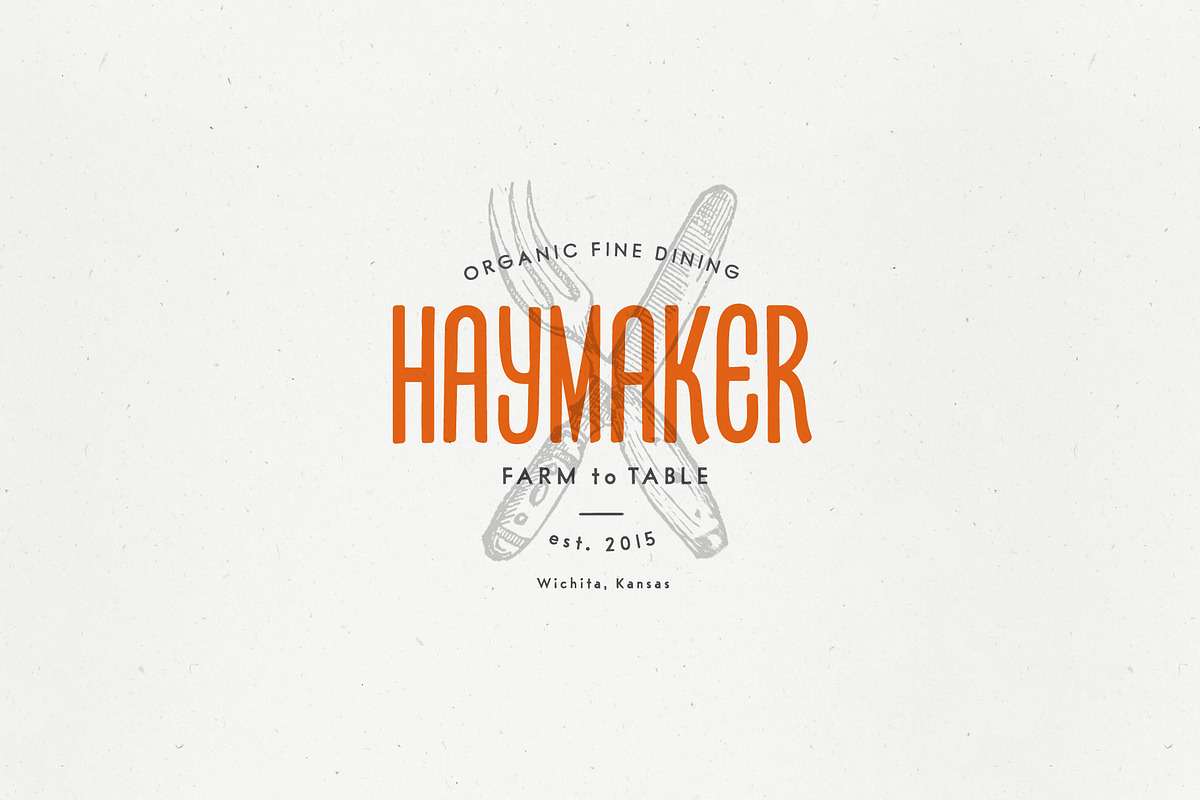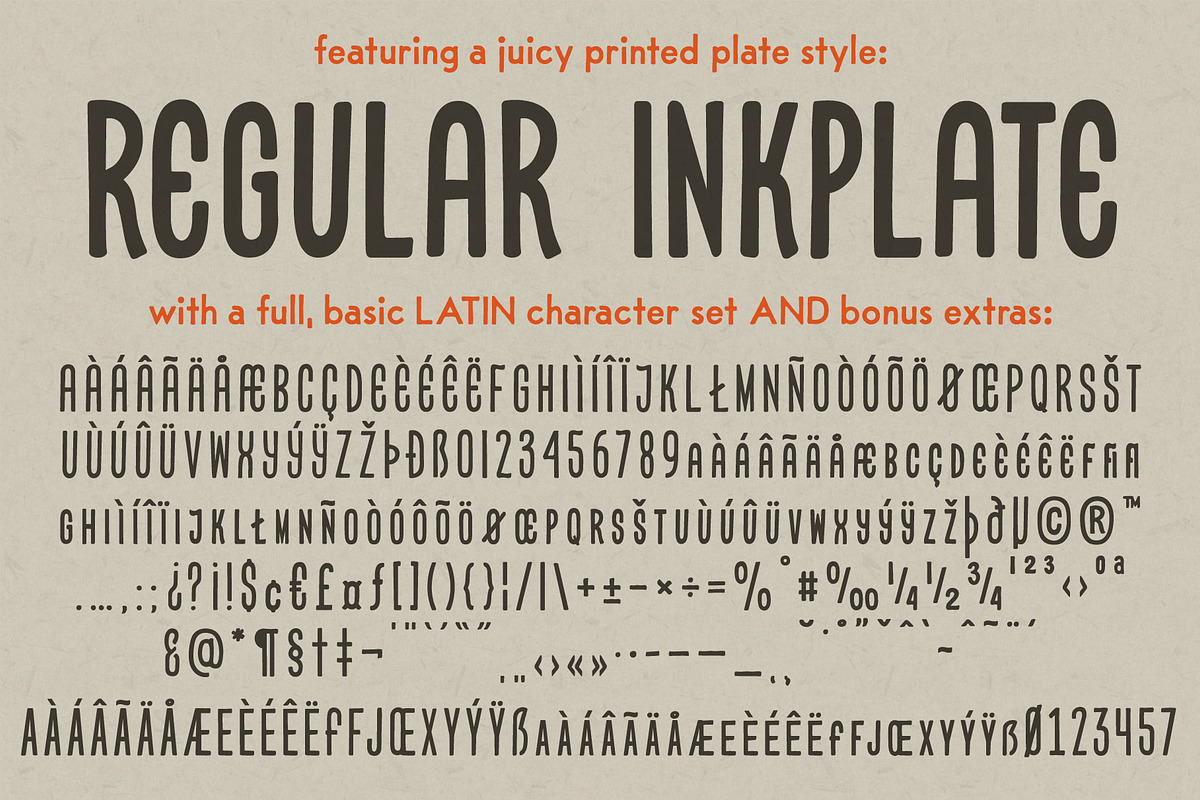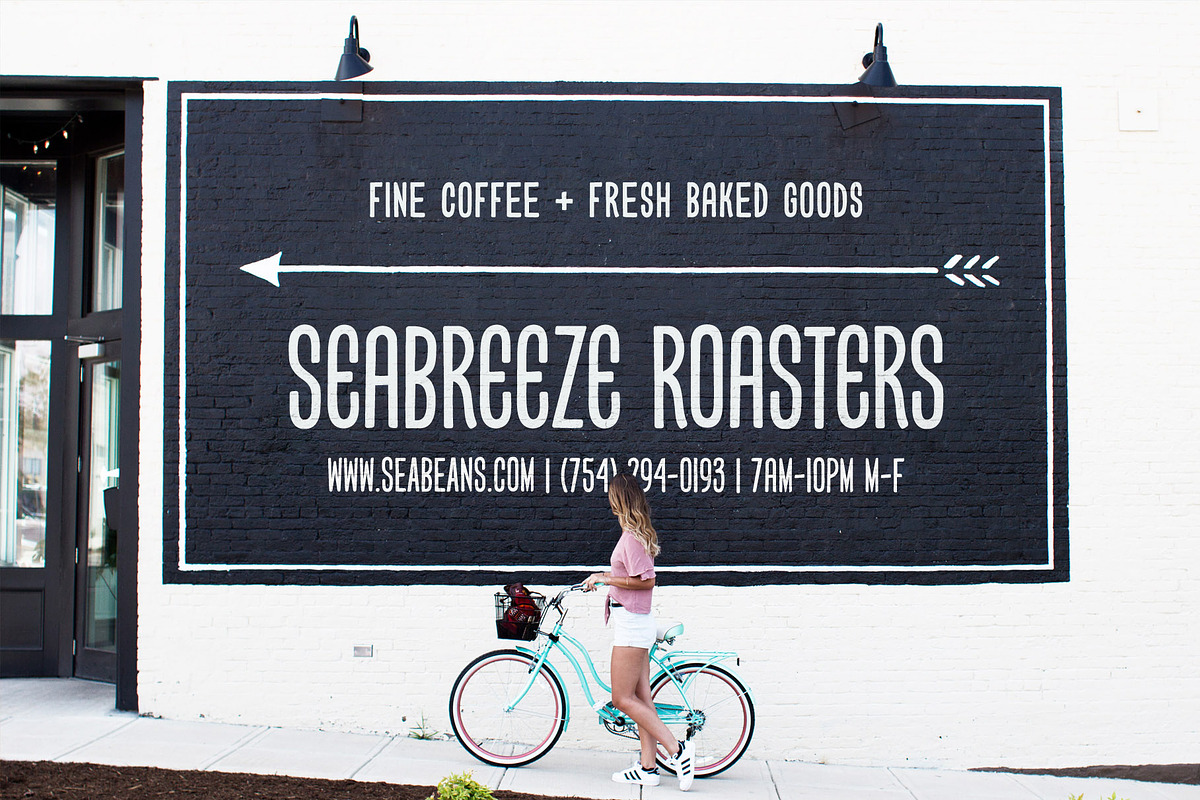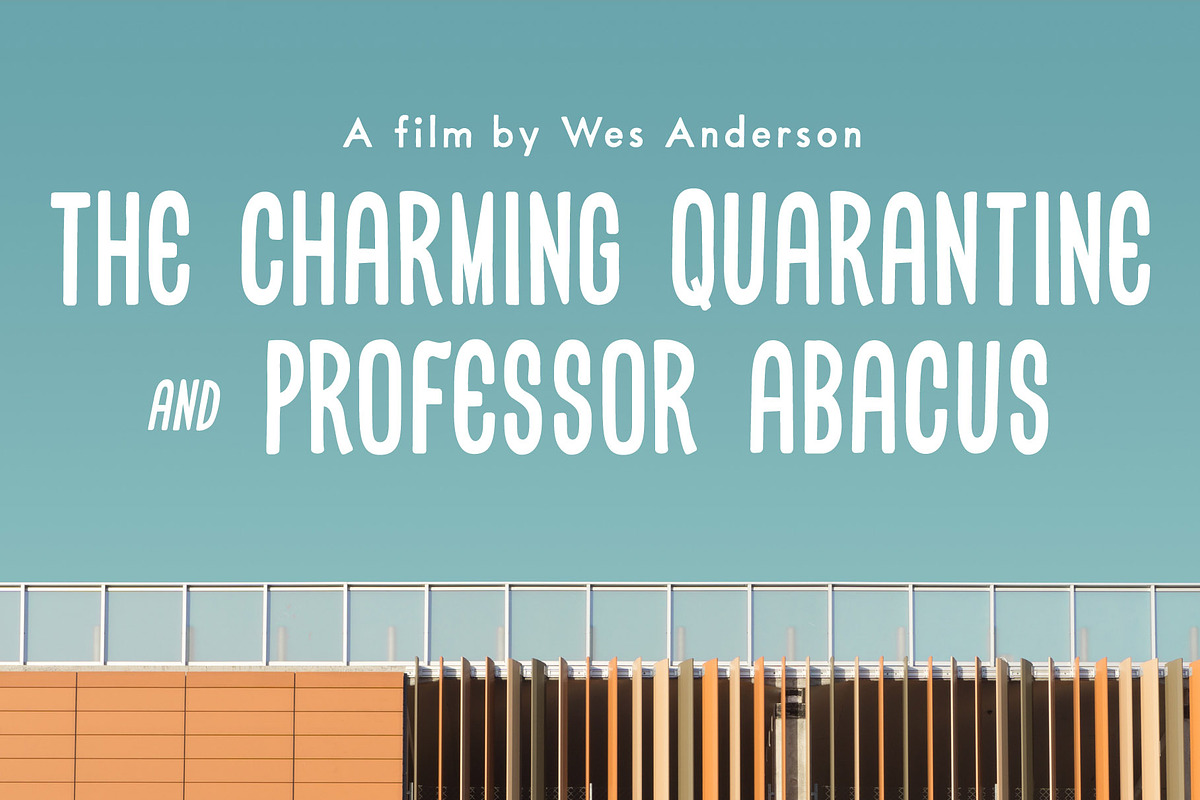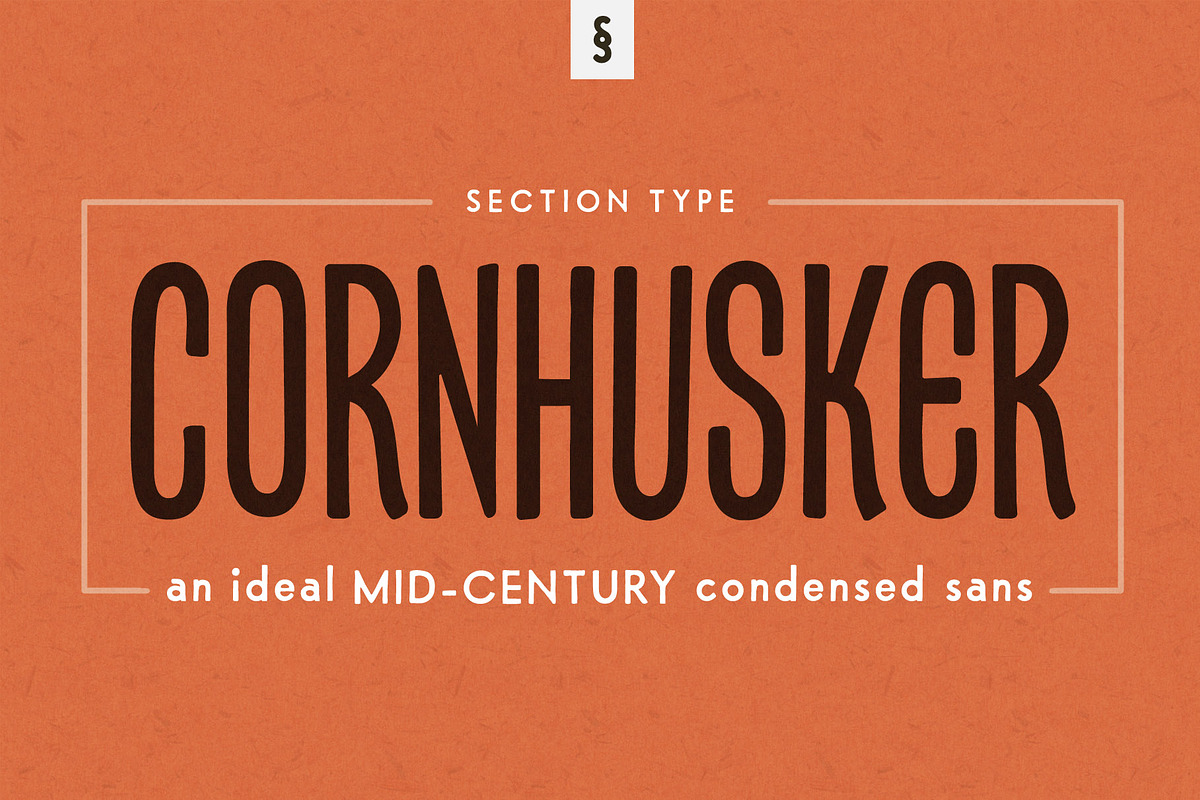
Cornhusker Regular | Condensed Font
Standing tall as an Illinois cornfield in September, Cornhusker Regular is a strapping condensed sans designed by a champion cornhusker. Inspired by 1940s Midwestern signage, it's warm & charming characters are perfectly at home in logos, beverage bottles and food packaging, restaurant menus, travel advertisements, websites, stationery, handmade product packaging and so much more. If you're looking for a hand-crafted typeface with punch (who can fit into tight spaces!) then Cornhusker Regular is the font for you.
This inspired revival excels in both retro & modern designs. Cornhusker Regular includes capital letters, small caps, and alternate cuts (with diacritics) of A, E, F, J, X, Y, ᴀ, ᴇ, ғ, ᴊ, x, ʏ, 0, 1, 2, 3, 4, 5, 7 and a sharp German double s in both cap and smallcap.
Basic Latin character set that includes a full set of uppercase and small caps, multilingual diacritics, numbers, international currency figures, punctuation and pagination symbols
Alternate cuts for select uppercase and smallcap letters (located in stylistic sets)